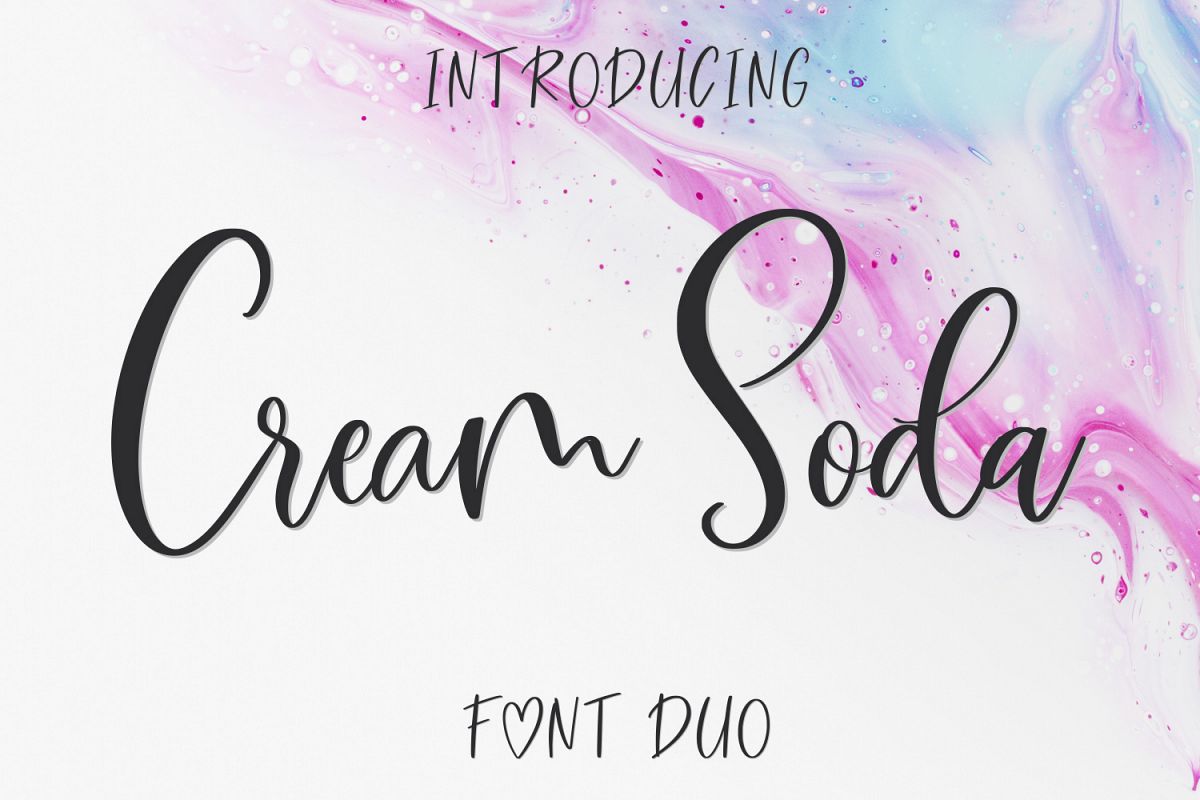
Cream Soda Font Duo - it'a a lovely handwritten font duo Cream Soda Font Duo.otf - standart and alternate uppercase, lowercase, numbers, punctuation and ligature Cream Soda Font DuoST.ttf - standart uppercase, lowercase, numbers, punctuation Cream Soda Font DuoAl.otf - alternate uppercase and lowercase Cream Soda Font Duo Sans Serif.otf - uppercase, lowercase, numbers, punctuation Cream Soda Font Duo Sans Serif.ttf - uppercase, lowercase, numbers, punctuation